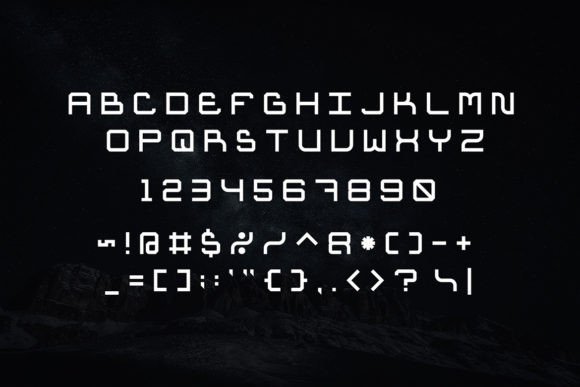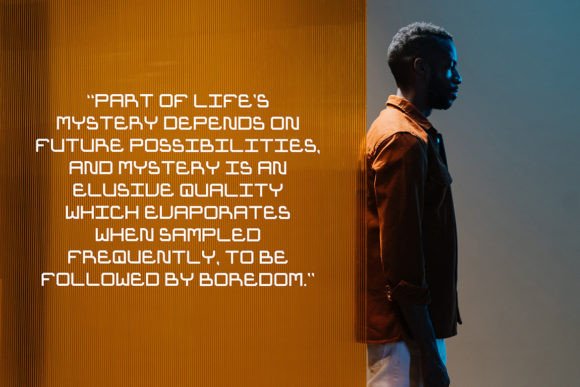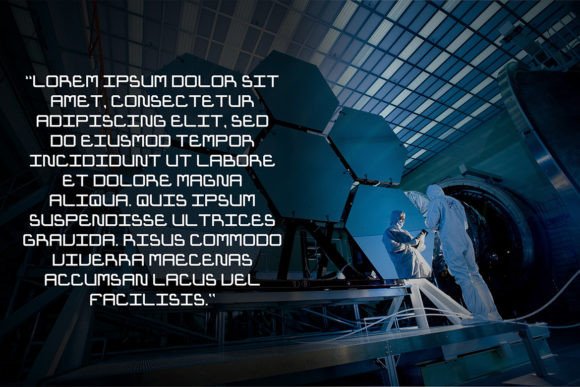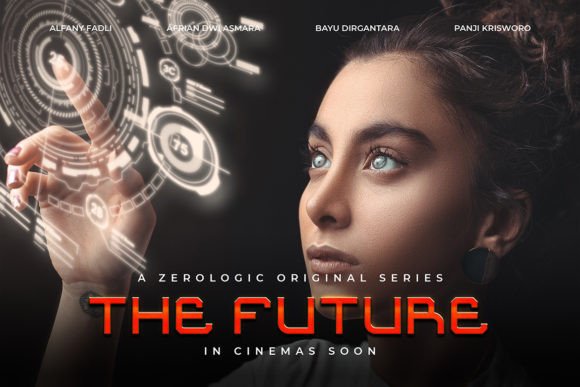
Introduction to Jackson Benton Font
As a designer, you know the thrill of hitting the perfect balance between creativity and functionality. You’ve spent hours pouring over your latest project, tweaking every detail to bring your vision to life. But sometimes, it all comes down to the smallest element – the font.
That’s where the Jackson Benton Font comes in – a modern, high-quality design resource that can take your creative project to the next level. With its unique blend of strength and sophistication, this font is perfect for titles, typography, and any design where you want to make a statement.
Key Features of Jackson Benton Font
- High-quality design resource ideal for creative projects, including logos, graphics, and typography.
- Designed with a modern aesthetic, the Jackson Benton Font is perfect for contemporary branding and design projects.
- With its clean lines and sophisticated feel, this font is an excellent choice for designers seeking a high-quality design resource.
Honest Review: Jackson Benton Font
I recently stumbled upon the Jackson Benton Font and I must say, it’s a fantastic addition to my design resource collection. As a designer, I’m always on the lookout for high-quality fonts that can elevate my creative projects. And this one definitely delivers.
Here are some of the things that I love about the Jackson Benton Font:
- ✨ Beautiful and elegant design that’s perfect for any formal or creative project
- ✨ Wide range of weights and styles to choose from, making it super versatile
Overall, I’m really impressed with the Jackson Benton Font. It’s a high-quality design resource that’s perfect for any creative project. If you’re looking for a beautiful and elegant font, I highly recommend giving it a try!
Experiment with different font sizes, colors, and styles to create unique designs. Use the font in combination with other design elements to add visual interest to your creative project.
The Jackson Benton Font is suitable for various design applications, including logos, graphics, digital art, presentations, and documents. Its transparent background makes it ideal for overlaying on images and creating visually appealing designs.